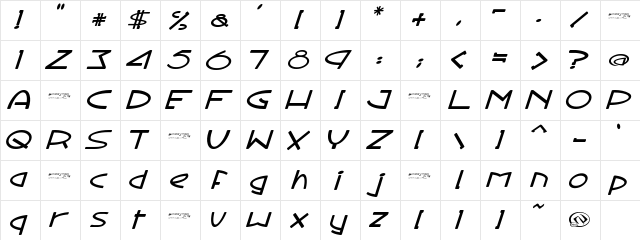
Doggstar tilt Regular
| Foundry | Chris Brown (visual design) |
| Designer | Chris Brown |
Design Context for Doggstar tilt Typeface
Doggstar tilt takes a measured approach to typography — its balanced proportions and neutral character make it a reliable workhorse for both digital and print work.